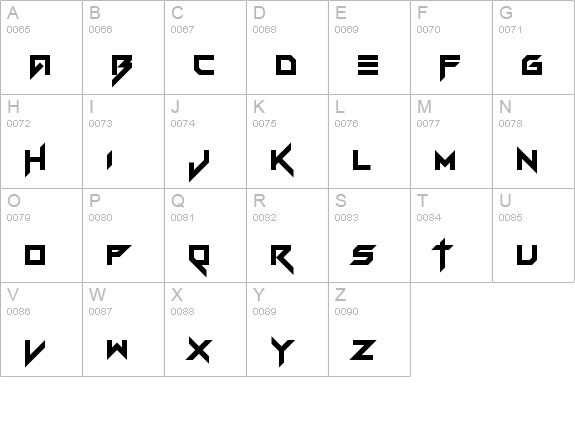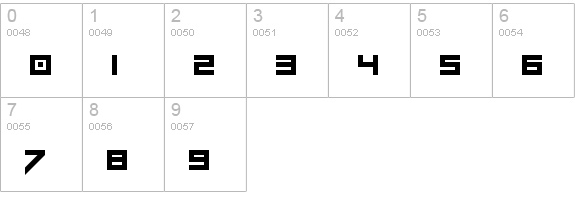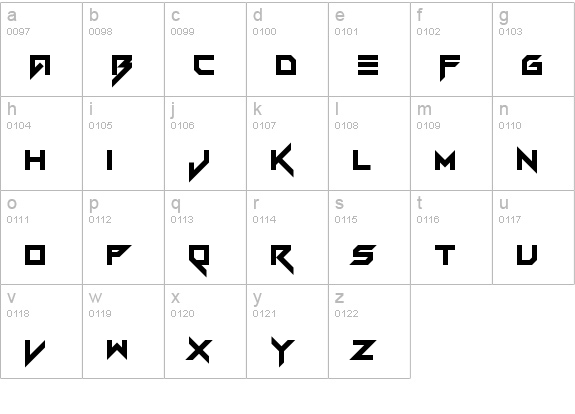
Vermin Vibes Regular is the standard, neutral variant in the Vermin typeface family \xE2\x80\x94 well suited to general body text, paragraphs, and standard typographic work.
Vermin Vibes Regular font exudes a unique blend of playful charm and modern sophistication. With its sleek lines and quirky details, this font is perfect for adding a touch of personality to any project. Its versatility allows it to be used for various design purposes, from branding to marketing materials. What sets Vermin Vibes Regular font apart is its free-spirited energy that captures attention and leaves a lasting impression. Whether used for headlines, logos, or body text, this font adds a dynamic element to any design. Best of all, Vermin Vibes Regular font is freely available to download at FontsMarket.com. So go ahead and unleash your creativity with this captivating and expressive typeface.